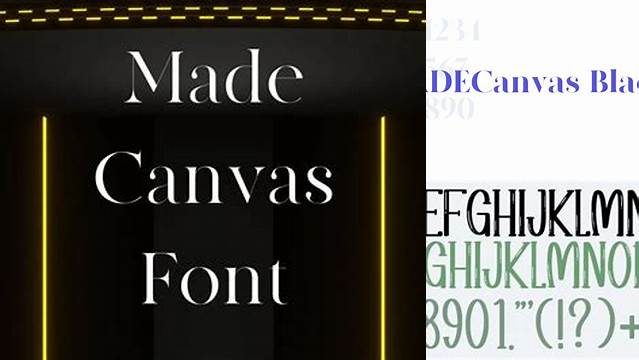
Made Canvas Black Font: Free Download & Usage Guide
1. Understanding the Allure of Made Canvas Black Font
So, what's the big deal with Made Canvas Black Font? Well, for starters, its sleek and modern design just screams sophistication. Its bold presence makes it ideal for headlines, logos, and any design element where you want to make a statement. The clean lines and balanced letterforms ensure readability while adding a touch of elegance. Imagine using this font for a website header – instantly captivating, right? Or perhaps on a poster for a trendy event? It’s versatile enough to fit a wide range of design styles, from minimalist to contemporary. Plus, its strong visual impact ensures your message gets across loud and clear. We will look into the different nuances as we go through this post.
1.1. The Design Philosophy Behind Made Canvas Black
The design philosophy of Made Canvas Black is rooted in simplicity and impact. It aims to deliver a font that is both visually striking and highly functional. The font's creators focused on achieving a balance between boldness and clarity, ensuring that each character is easily recognizable and aesthetically pleasing. This philosophy makes Made Canvas Black a versatile choice for designers who want to convey a sense of modernity and confidence. Its strong, clean lines make it suitable for a variety of applications, from digital interfaces to print materials. The font's attention to detail is evident in its meticulously crafted letterforms, which exude a sense of precision and professionalism. Whether you're designing a logo, a website, or a marketing campaign, Made Canvas Black can help you achieve a polished and impactful look. The design also considers the use of negative space, enhancing readability and visual appeal.
1.2. Applications in Modern Design
In modern design, Made Canvas Black excels in various applications. Its bold nature makes it perfect for headlines, titles, and branding materials where a strong visual presence is needed. Many designers use it in website headers to grab visitors' attention instantly. It's also commonly found in logo designs, posters, and promotional materials due to its readability and impact. Its versatility extends to editorial design, where it can be used for magazine titles and section headings. In the digital realm, Made Canvas Black is ideal for app interfaces and user experience (UX) design, providing clarity and style. Its ability to convey a sense of modernity and confidence makes it a popular choice for tech companies and startups. Whether you're creating a sleek website or a dynamic marketing campaign, Made Canvas Black can elevate your design and help you communicate your message effectively. Let’s not forget its use in social media graphics, where its boldness helps content stand out in crowded feeds.